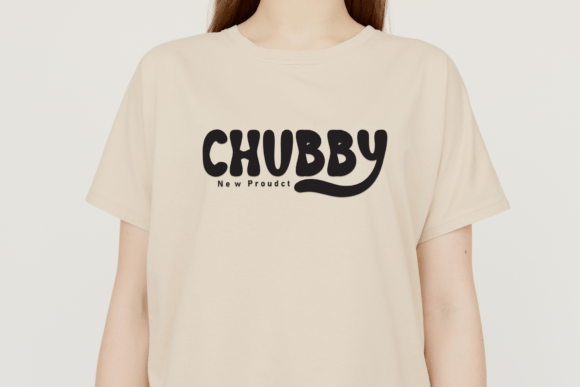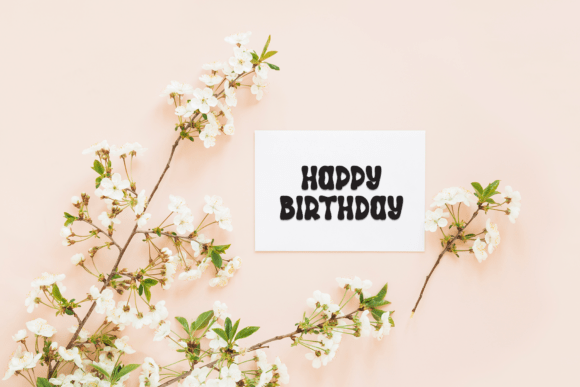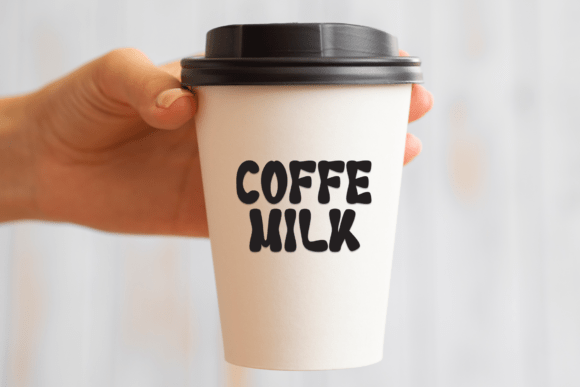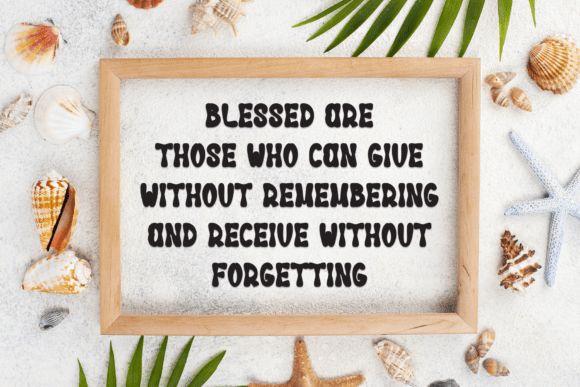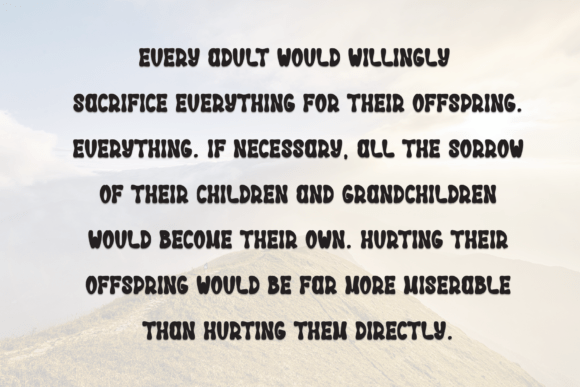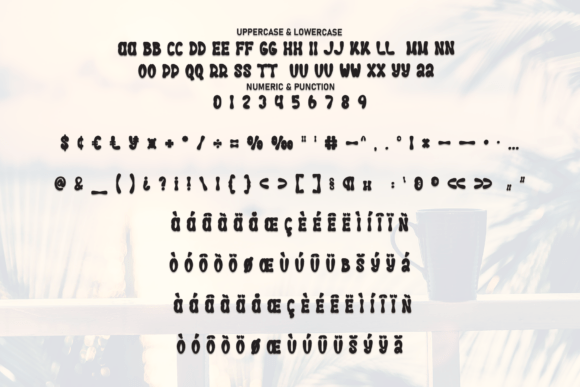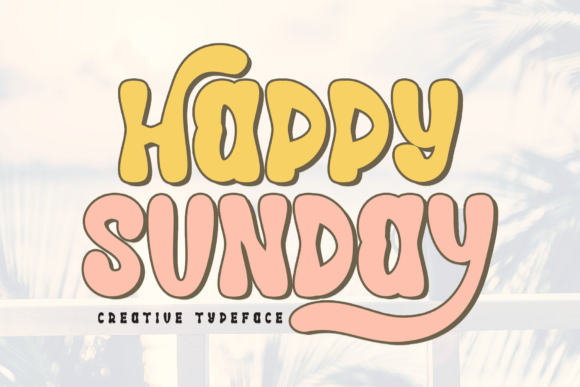
Introducing Happy Sunday Font: The Perfect Blend of Modern Simplicity and Playful Charm
Are you tired of using fonts that are too formal or too dull? Look no further than Happy Sunday Font, a casual display font that brings a fresh and friendly touch to any design project. With its modern simplicity, playful vibe, and excellent readability, Happy Sunday Font is the perfect choice for designers and crafters looking to add a personal touch to their work.
Clean Shapes, Soft Edges, and Well-Balanced Letterforms
Happy Sunday Font features clean shapes, soft edges, and well-balanced letterforms that capture the charm of relaxed design while maintaining clarity and style. The font’s design is carefully crafted to create a sense of approachability and friendliness, making it ideal for a wide range of applications, from posters and branding to packaging and social media graphics.
One of the standout features of Happy Sunday Font is its unique blend of modern simplicity and playful charm. The font’s clean lines and simple shapes give it a modern and sleek look, while its soft edges and rounded letterforms add a touch of playfulness and whimsy. This blend of styles makes Happy Sunday Font versatile and adaptable, suitable for use in a variety of design contexts.
Happy Sunday Font is a versatile font that can be used in a wide range of design projects. Whether you’re creating posters, flyers, brochures, or social media graphics, this font is sure to add a fresh and friendly touch to your work. Its excellent readability and clear letterforms make it perfect for use in both digital and print applications.
For designers and crafters, Happy Sunday Font offers a range of benefits. Its unique and eye-catching design makes it perfect for use in branding and packaging, where standing out from the crowd is essential. The font’s playful and approachable vibe also makes it ideal for use in children’s designs, such as nursery decor, kids’ party invitations, and educational materials.
Key Features of Happy Sunday Font
- Modern simplicity: Happy Sunday Font features clean lines, simple shapes, and a sleek design that’s perfect for modern designs.
- Playful charm: The font’s soft edges, rounded letterforms, and playful vibe add a touch of whimsy and friendliness to any design.
- Excellent readability: Happy Sunday Font is designed to be clear and easy to read, making it perfect for use in both digital and print applications.
- Versatility: The font can be used in a wide range of design contexts, from posters and branding to packaging and social media graphics.
- Pair it with bold colors: Happy Sunday Font looks great when paired with bold, bright colors. Try using it with a bold color scheme to create a fun and playful design.
- Use it in combination with other fonts: Happy Sunday Font can be used in combination with other fonts to create a unique and eye-catching design. Try pairing it with a serif font for a contrasting look.
- Experiment with different sizes: Happy Sunday Font can be used at a range of sizes, from small to large. Experiment with different sizes to find the one that works best for your design.
Happy Sunday Font is a unique and versatile font that’s perfect for designers and crafters looking to add a fresh and friendly touch to their work. With its modern simplicity, playful charm, and excellent readability, this font is sure to become a favorite in your design arsenal. So why not give it a try and see how Happy Sunday Font can elevate your designs to the next level?